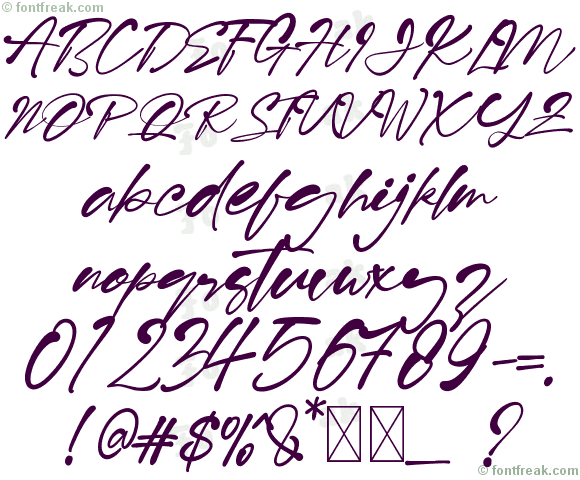
Risolla Calisto
About Risolla Calisto
Risolla Calisto is a stunning script font designed by Burhan Afif, classified under the decorative category. This font features a fluid, cursive style that exudes elegance and charm, making it a perfect choice for a variety of creative projects. The strokes are gracefully crafted with a medium-weight appeal, showcasing a balanced contrast that captures attention without overwhelming the eye. The generous spacing between the letters adds to its readability, while the gentle curves and swirls introduce a sense of artistry that can elevate any design.
This versatile font is particularly well-suited for wedding invitations, where its romantic flair can beautifully convey heartfelt sentiments. Additionally, Risolla Calisto shines in branding materials for upscale restaurants, giving menus an air of sophistication. It can also enhance movie posters, lending a captivating visual element that draws viewers in. For content creators and social media influencers, this font is ideal for creating eye-catching graphics and promotional materials that stand out in crowded feeds.
Targeting graphic designers, small business owners, and content creators, Risolla Calisto provides a unique opportunity to add a touch of elegance to their projects. The font’s decorative nuances make it a fantastic choice for anyone looking to make a memorable impression.
What sets the Risolla Calisto font apart is its ability to blend artistry with functionality. It captures the essence of creativity while maintaining a level of sophistication that makes it suitable for both formal and casual contexts. With its availability as a freeware, users can enjoy the Risolla Calisto font free download, enabling them to incorporate this beautiful typeface into their work without any cost. This combination of elegance and accessibility makes Risolla Calisto a standout choice in the world of typography.